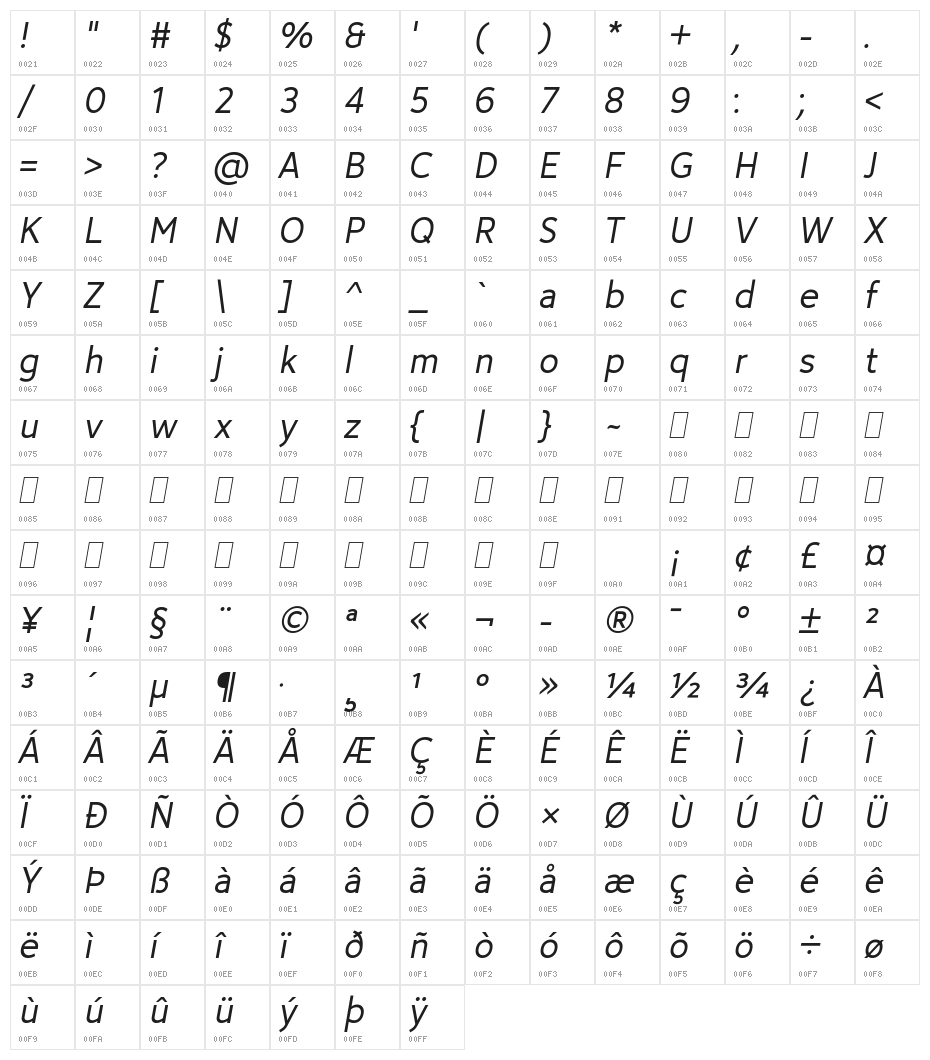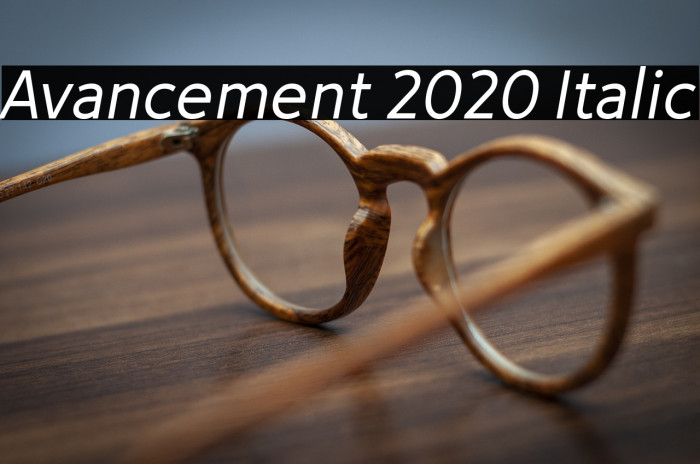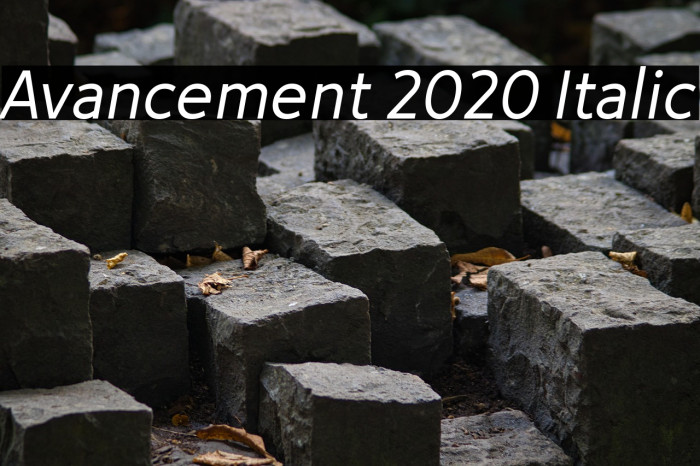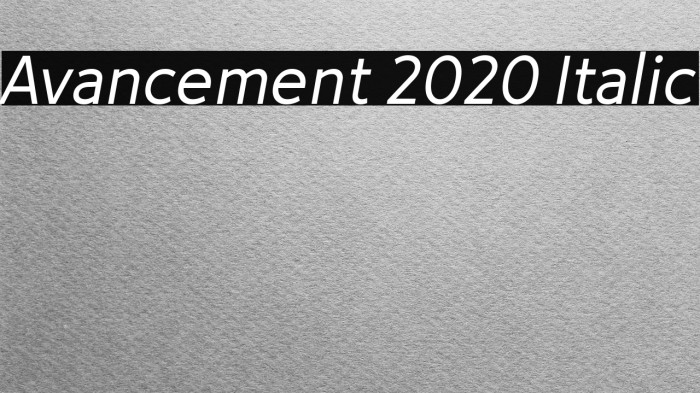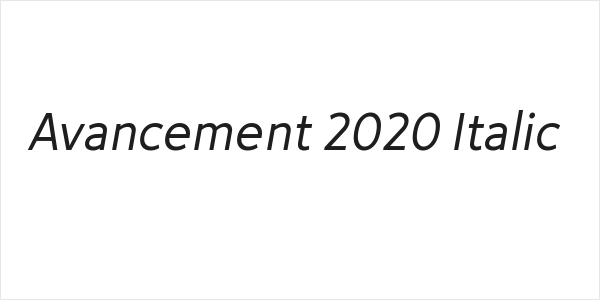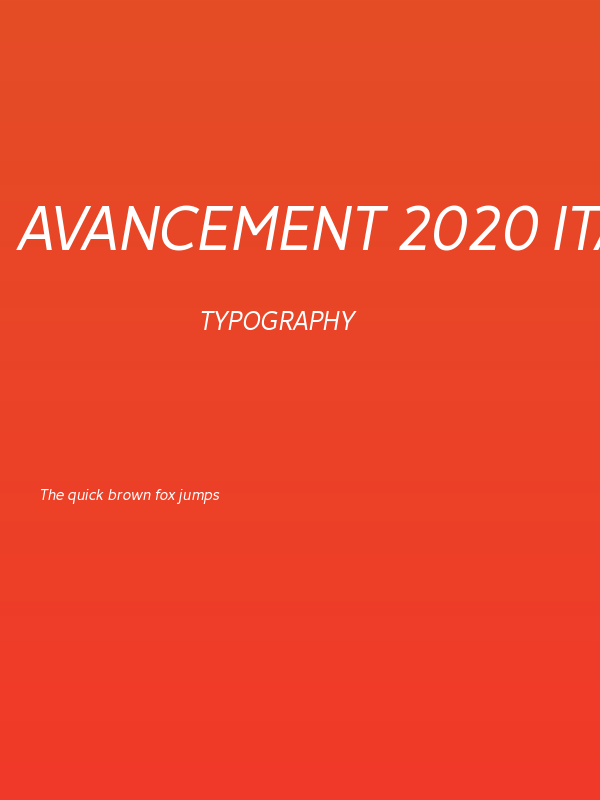
Avancement 2020 Italic Font
Avancement 2020 Italic Description
This font features a sleek and modern design with a slight italic slant, giving it a dynamic and forward-moving appearance. The characters are clean and well-defined, with a consistent stroke width that maintains readability across different sizes. The uppercase and lowercase letters are proportionate, and the numerals are clear and distinct. Special characters are included, providing versatility for various applications. The overall aesthetic is contemporary and professional, making it suitable for both digital and print media.
| Proposed Projects | Ideal for branding, advertising, digital content, and editorial design where a modern and professional look is desired. |